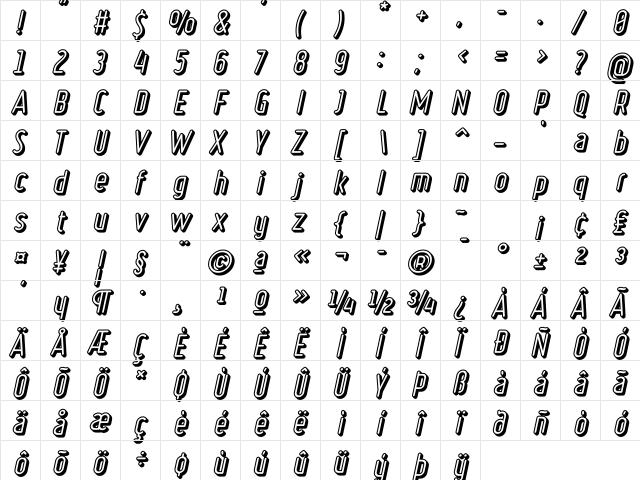
Ruler Volume Regular
| Foundry | Levi Szekeres |
| Designer | Levi Szekeres |
Design Context for Ruler Volume Typeface
Ruler Volume offers clean, dependable letterforms without strong stylistic allegiance, making it a practical choice for designers who need flexibility.